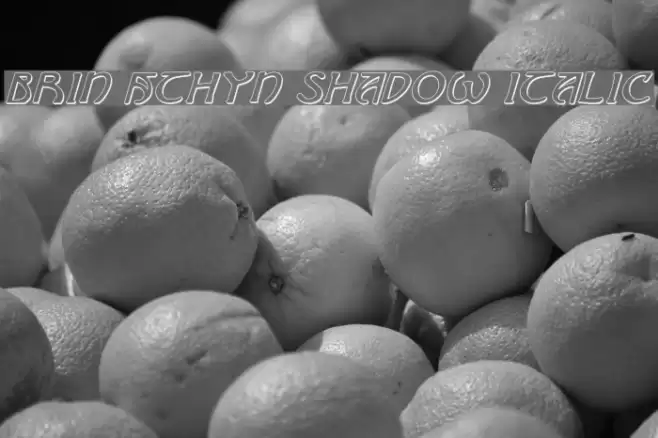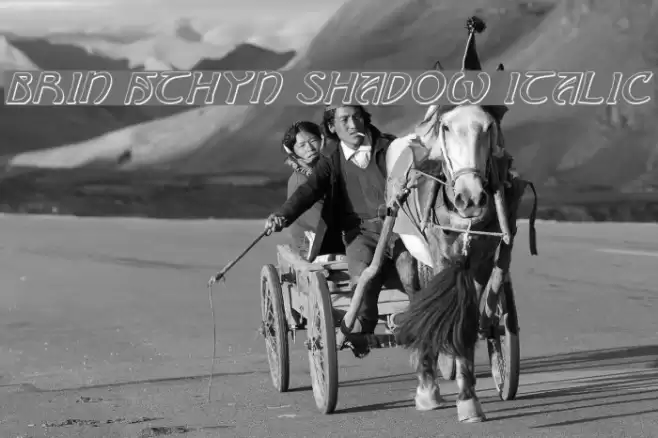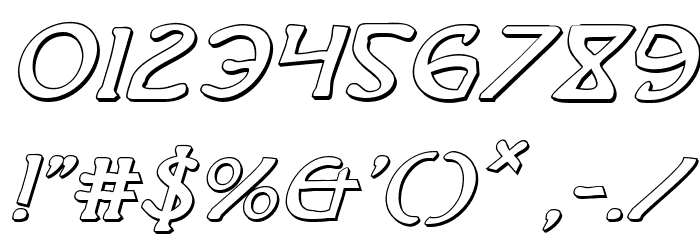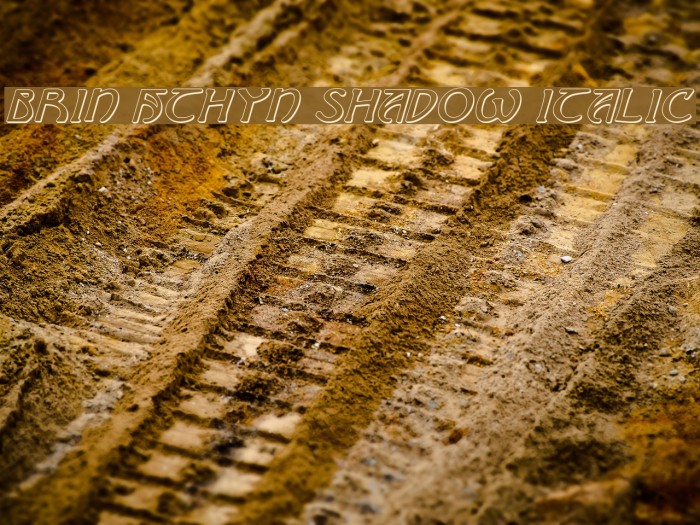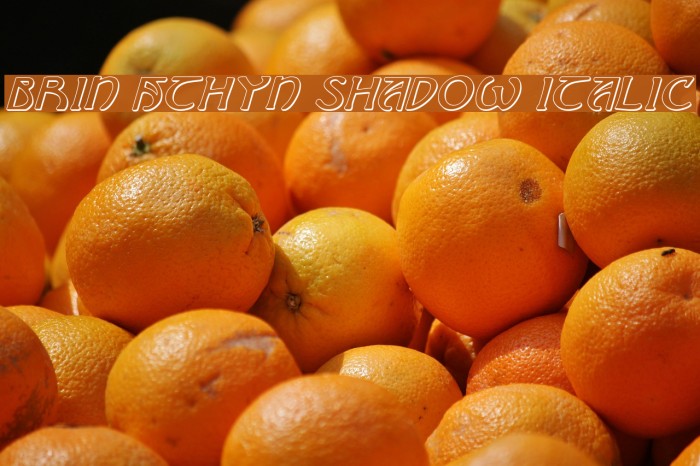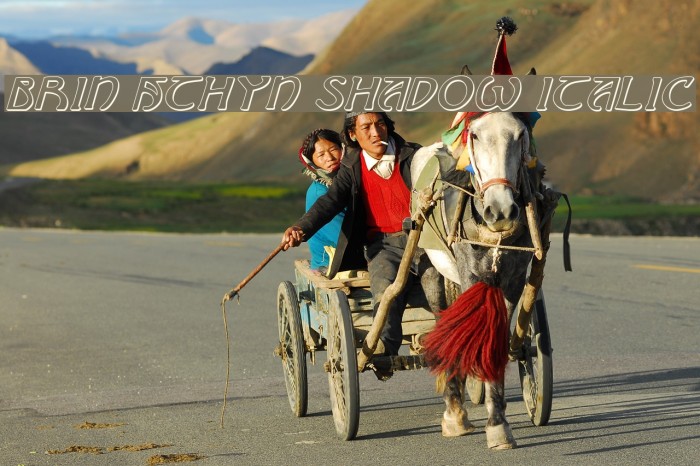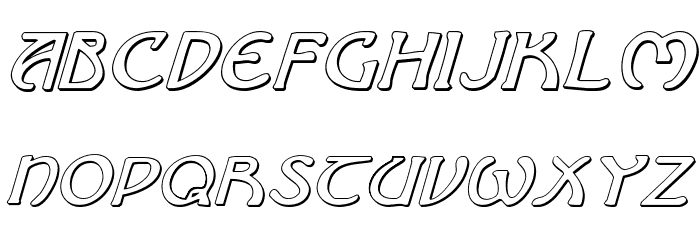
Brin Athyn Shadow Italic Font
Brin Athyn Shadow Italic Description
This font features a unique shadow effect that gives each character a three-dimensional appearance. The letters are italicized, adding a dynamic and forward-leaning style. The strokes are bold and consistent, with a clear outline that enhances readability while maintaining a decorative flair. The overall design is modern and eye-catching, making it suitable for creative projects. The characters are evenly spaced, providing a balanced look across the text. This font includes a full set of uppercase and lowercase letters, numbers, and a variety of special characters, making it versatile for various applications.
A bold, italicized font with a shadow effect, offering a modern and decorative style from Gothic fonts.
- Proposed Projects: Ideal for posters, headlines, branding, and any project requiring a striking and modern typeface.